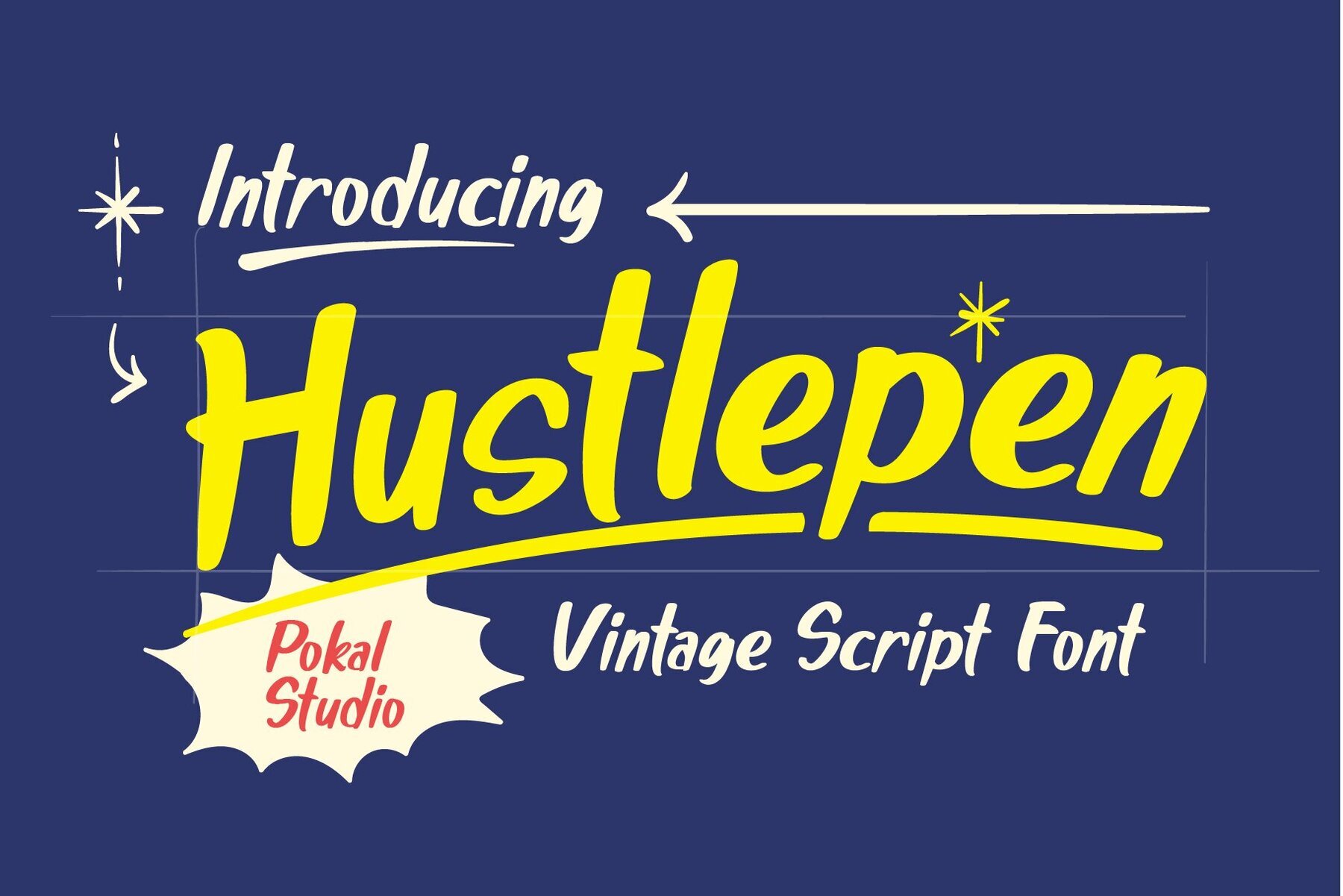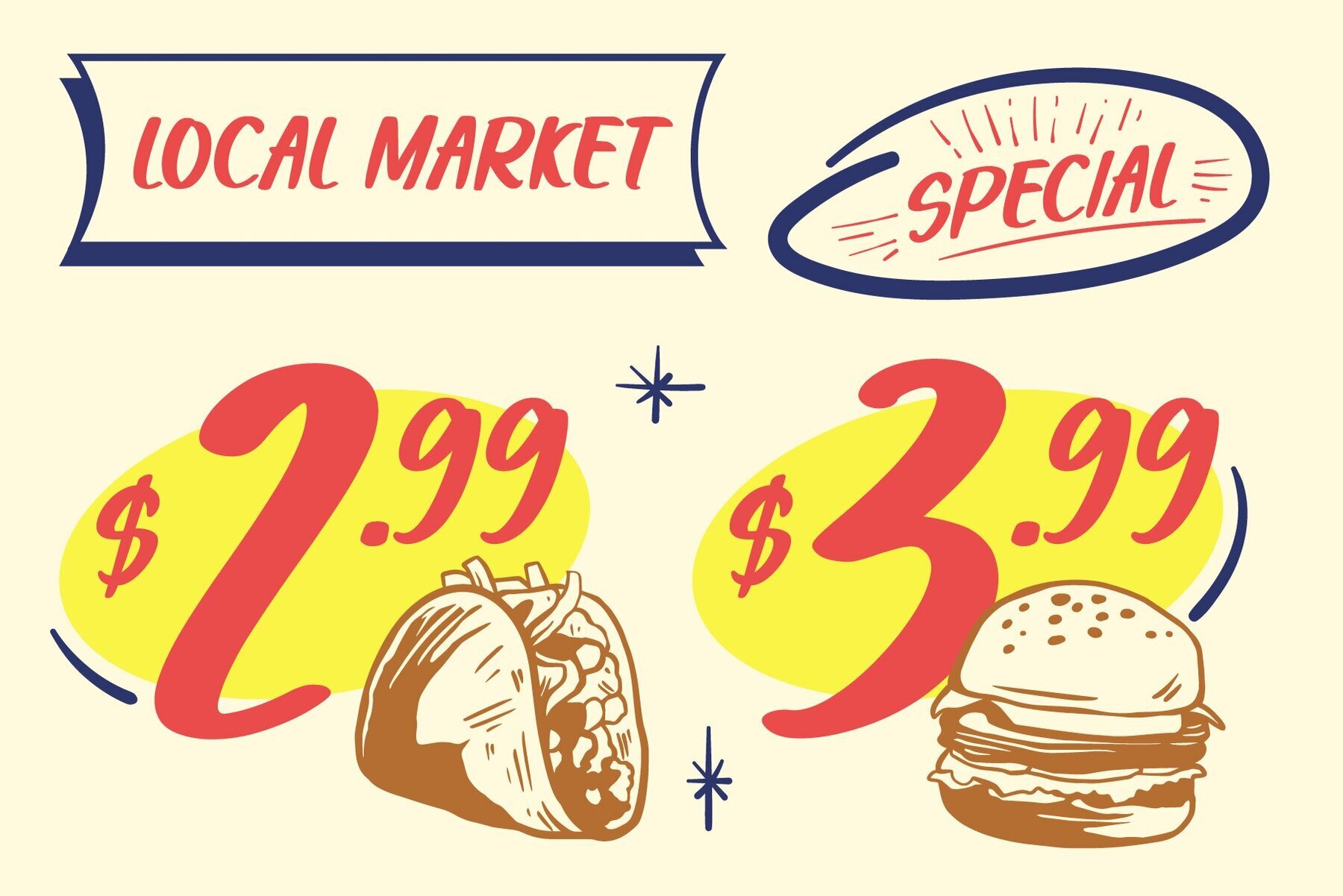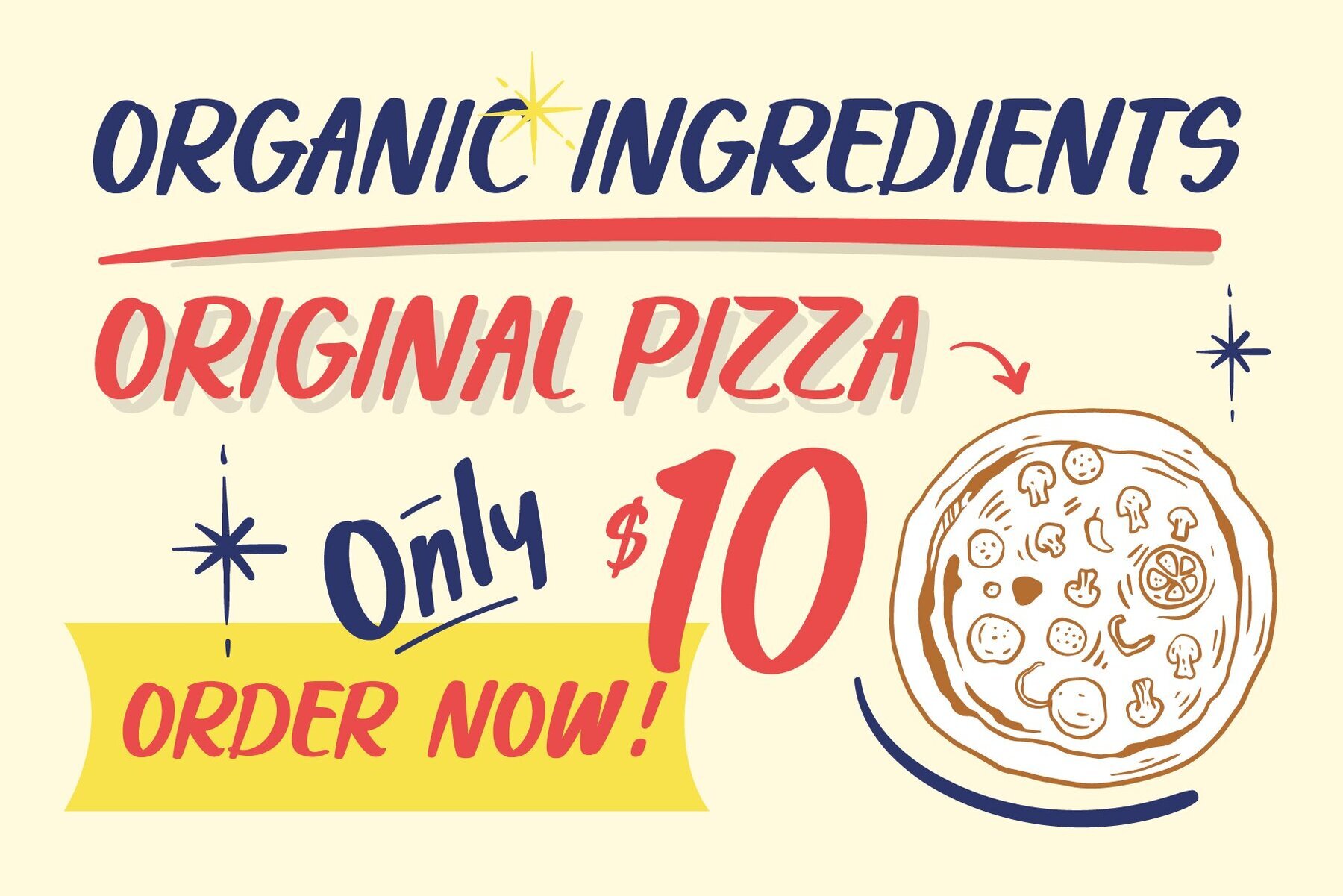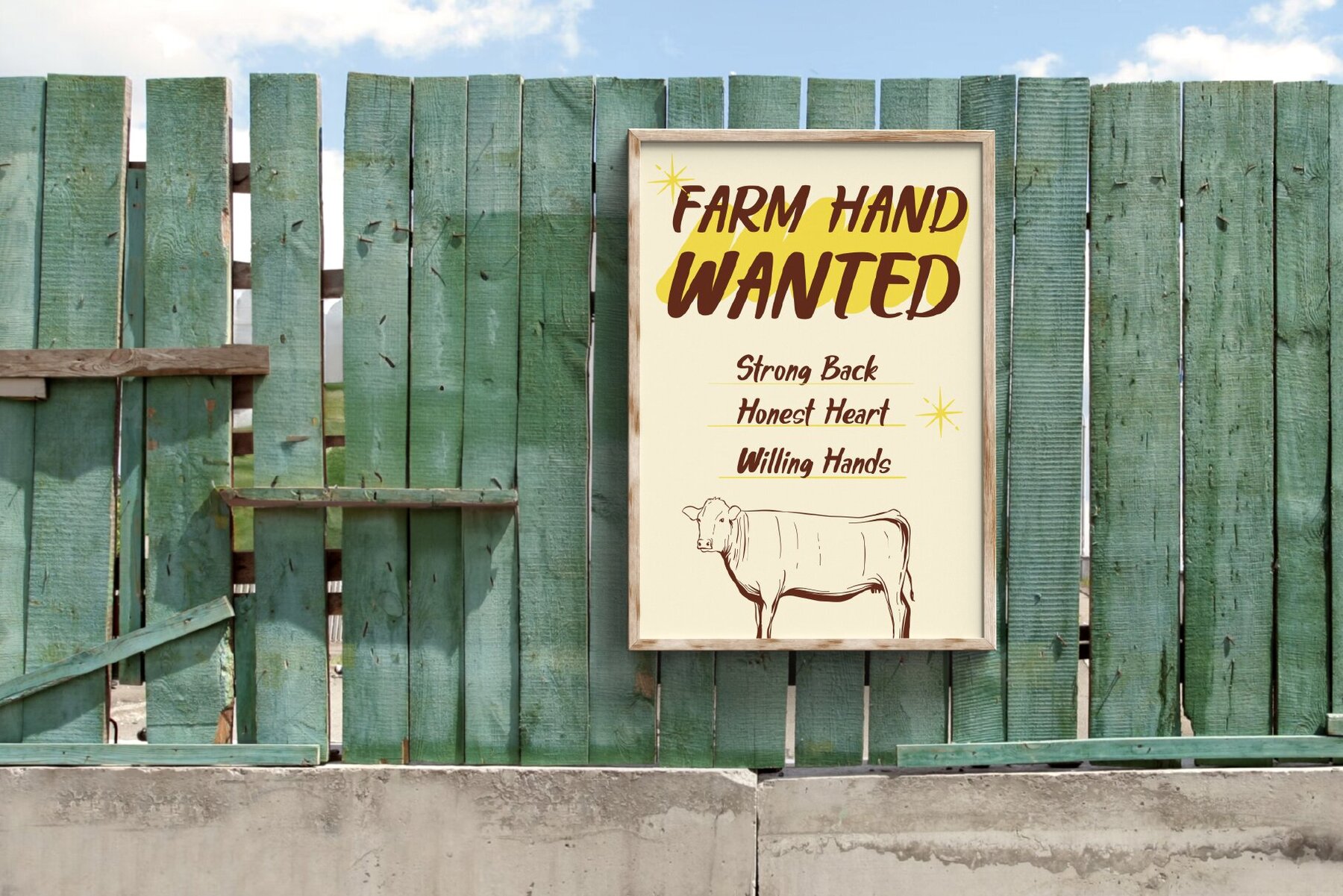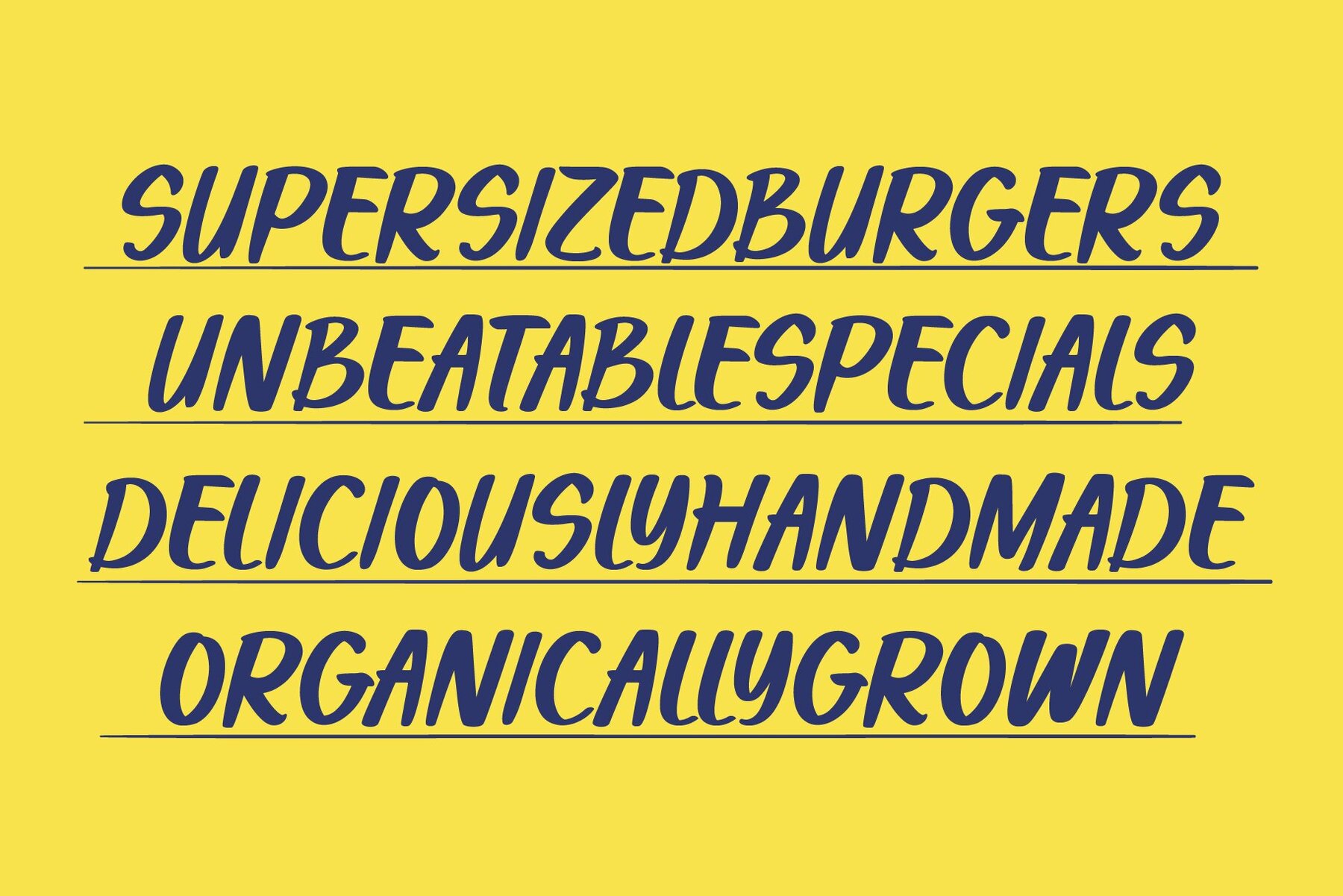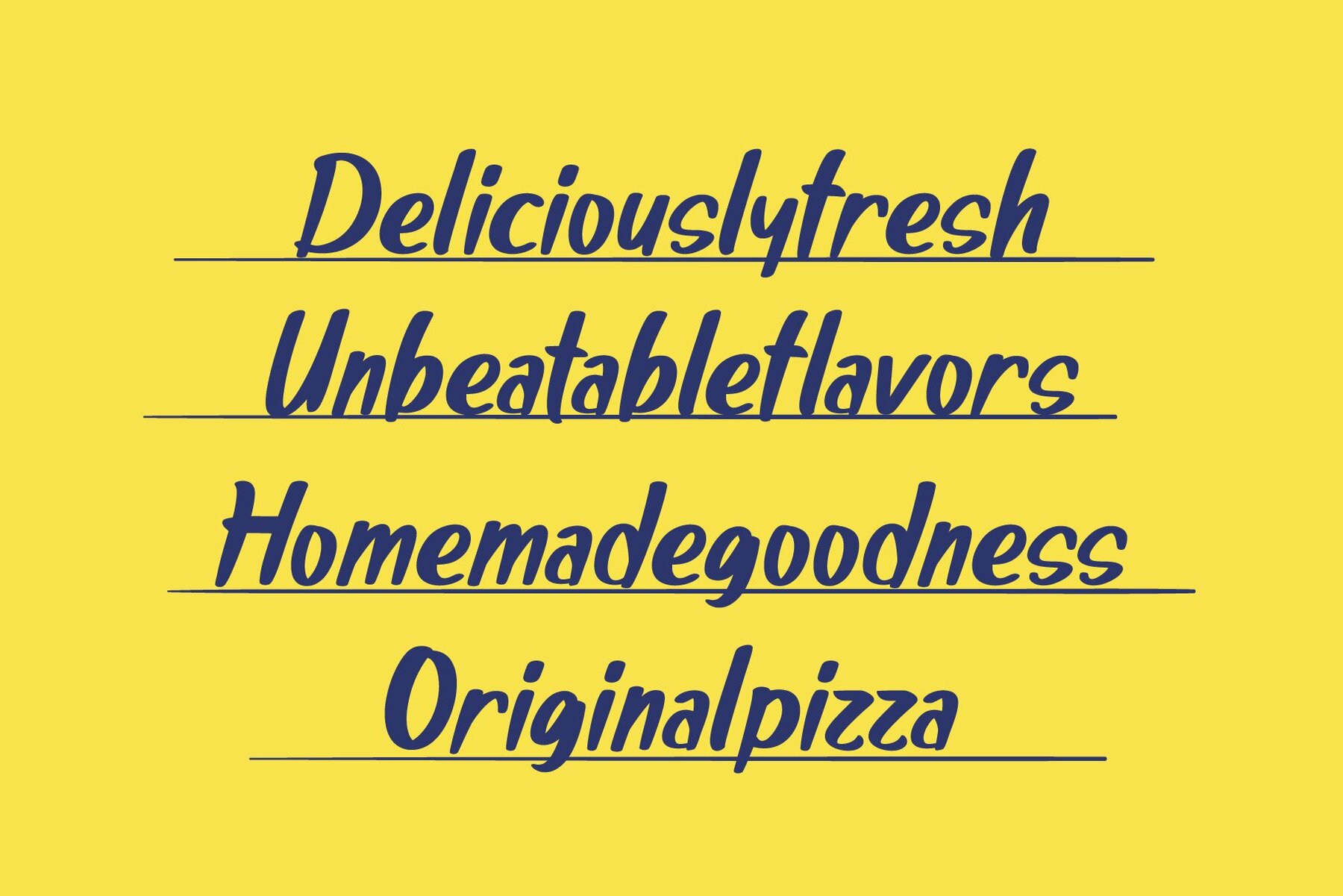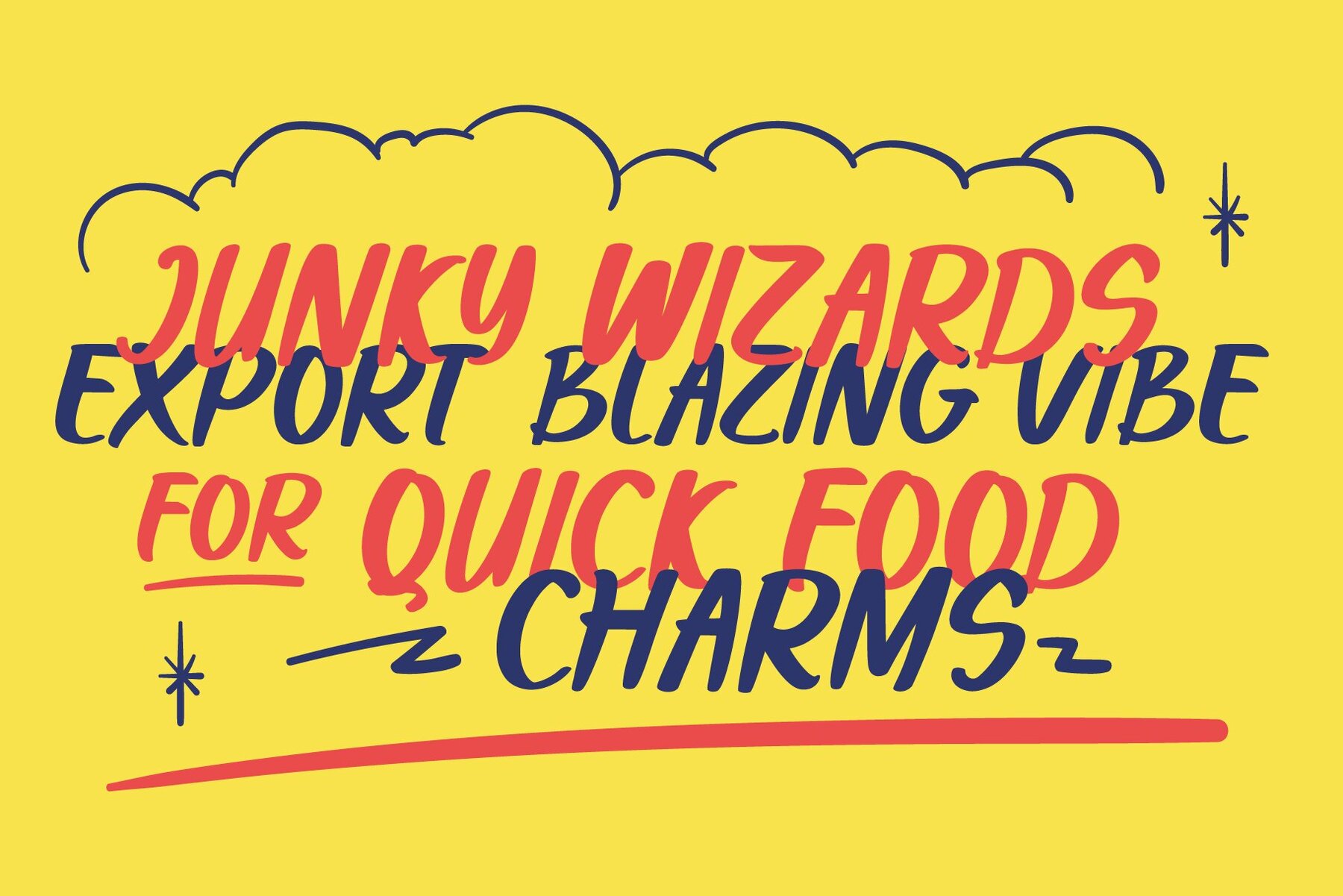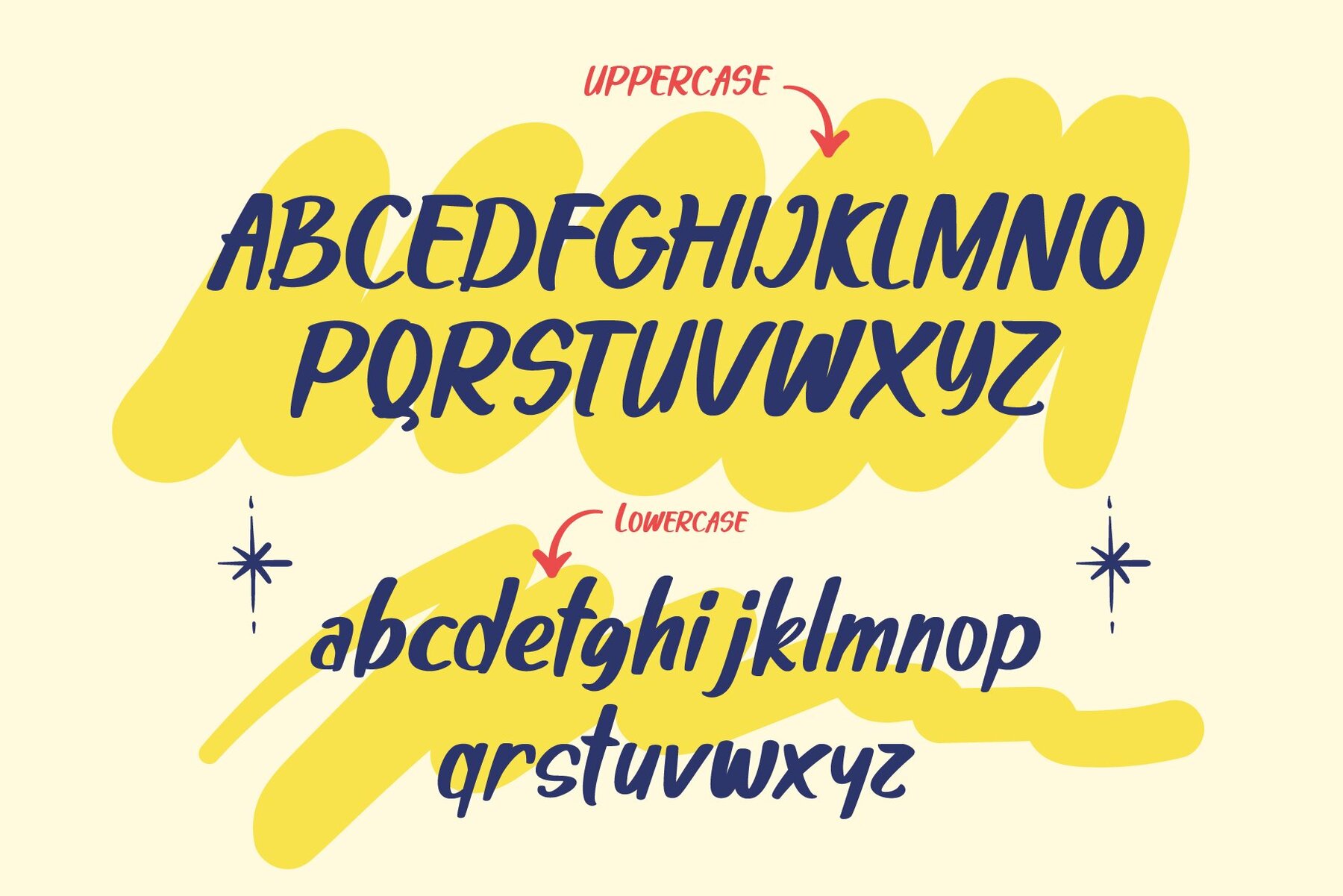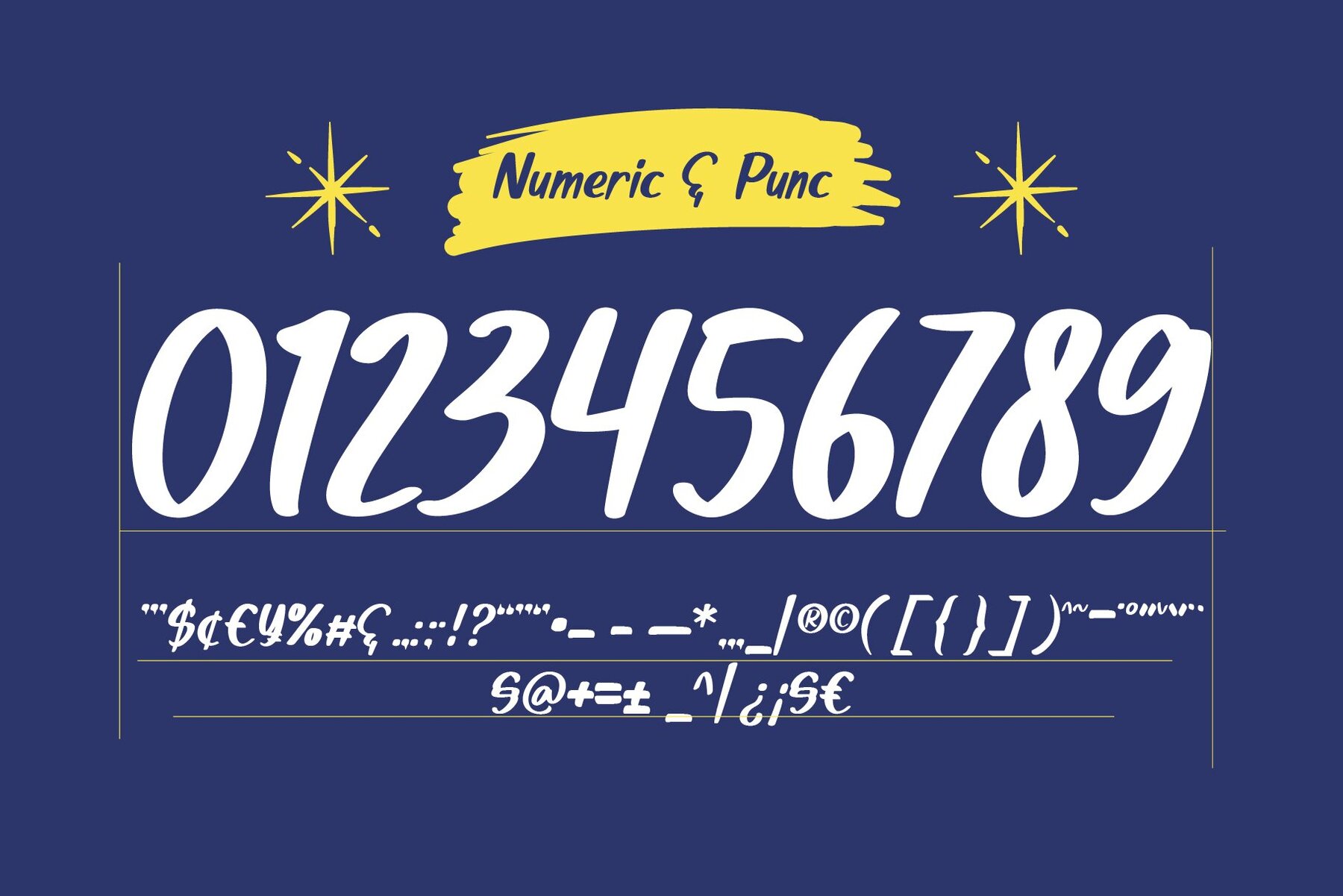
Hustlepen Font
PS Hustlepen
Imbue your designs with retro charm and bold personality through Hustlepen, a script font inspired by vintage aesthetics. Ideally suited for eye-catching displays, Hustlepen boasts smooth hand-drawn strokes and playful character. Whether for branding, posters, packaging, or advertising, this font fits perfectly within retro-themed projects. This font encapsulates the nostalgic essence of old-school markets, diner menus, and vintage advertisements, while retaining versatility for modern applications. The bold letters deliver a strong impact, complemented by smooth curves that exude a friendly, approachable vibe. Features: Whether crafting a retro logo, creating a food and beverage menu, or designing a captivating social media post, Hustlepen infuses your work with authentic vintage flair and a lively, handcrafted touch.Hustlepen: Vintage Script Font with Retro Charm